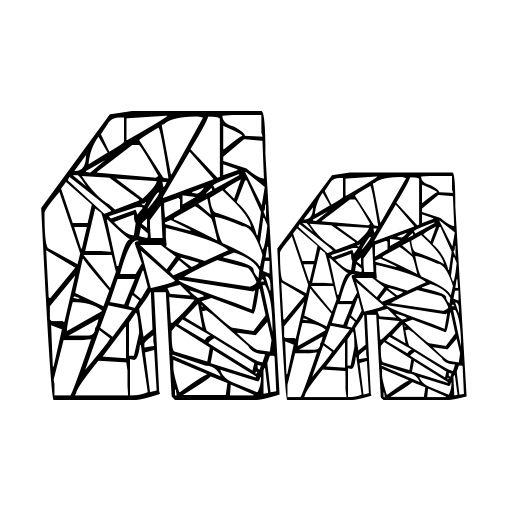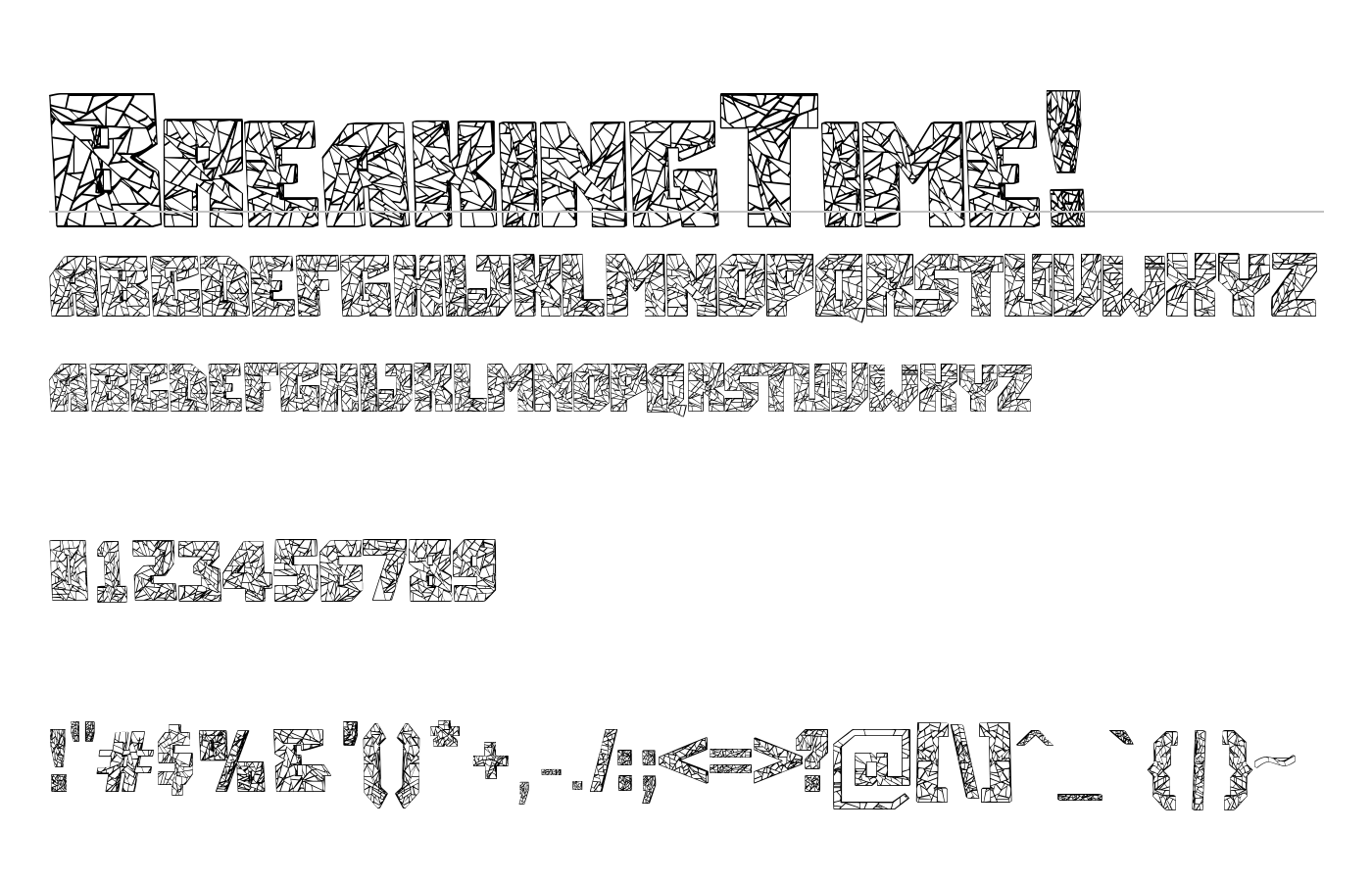
BreakingTime! is a bold, geometric display font characterized by a shattered, mosaic-like pattern within strong, blocky letterforms. Its unique textured style and uppercase-only design make it perfect for eye-catching headlines, logos, and creative posters where a dynamic, edgy, and energetic vibe is desired. This font works best in contexts where a bold artistic statement or modern, playful impact is needed rather than for body text.
BreakingTime! Font